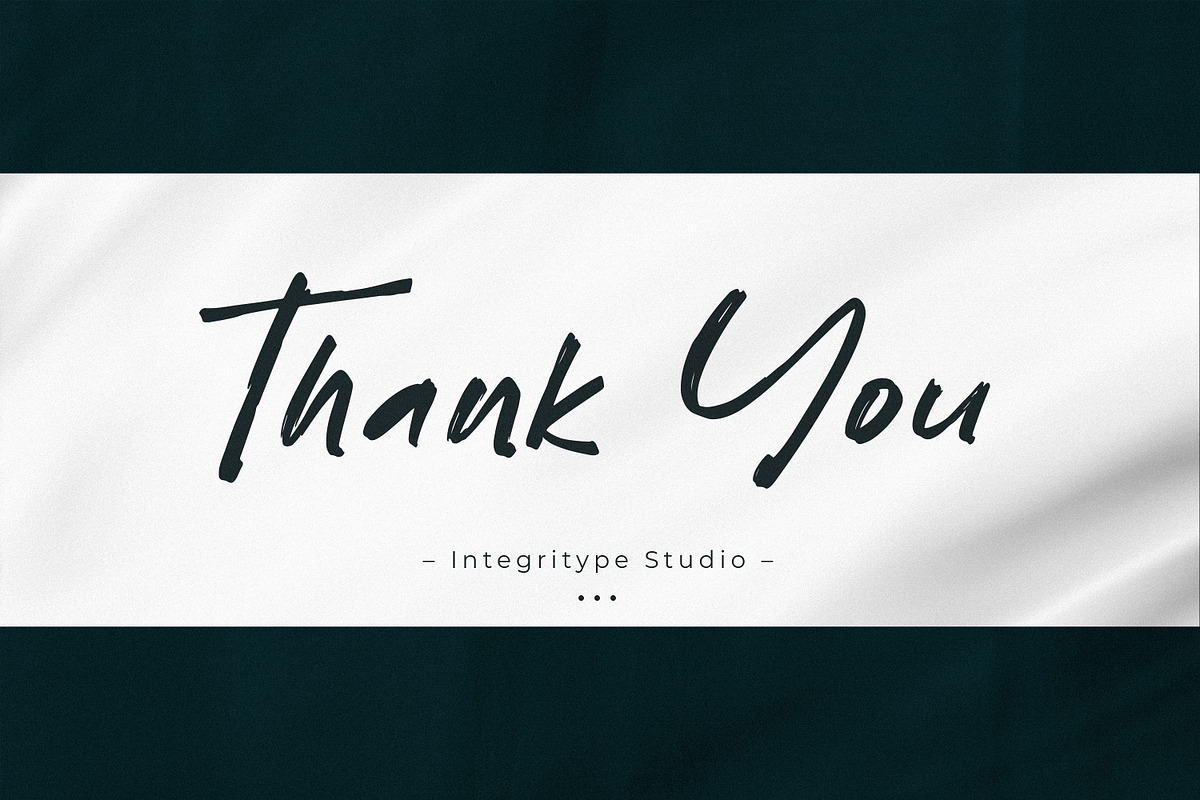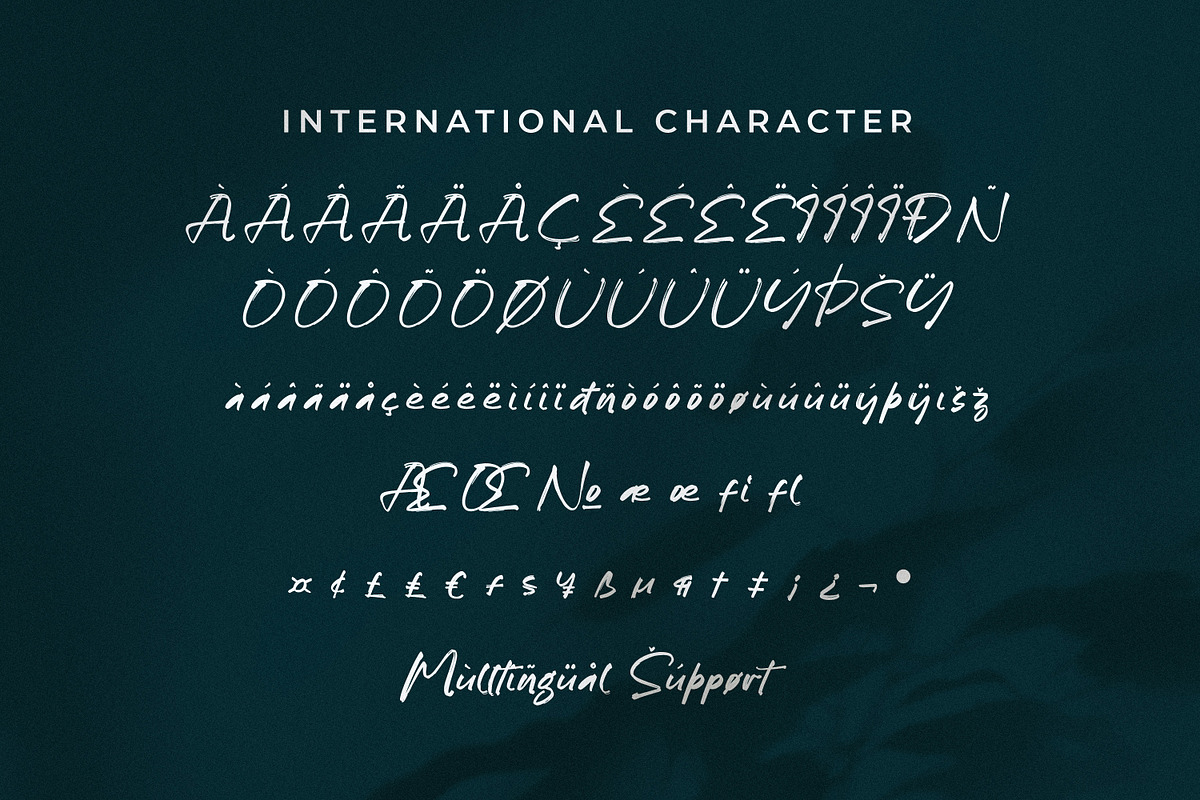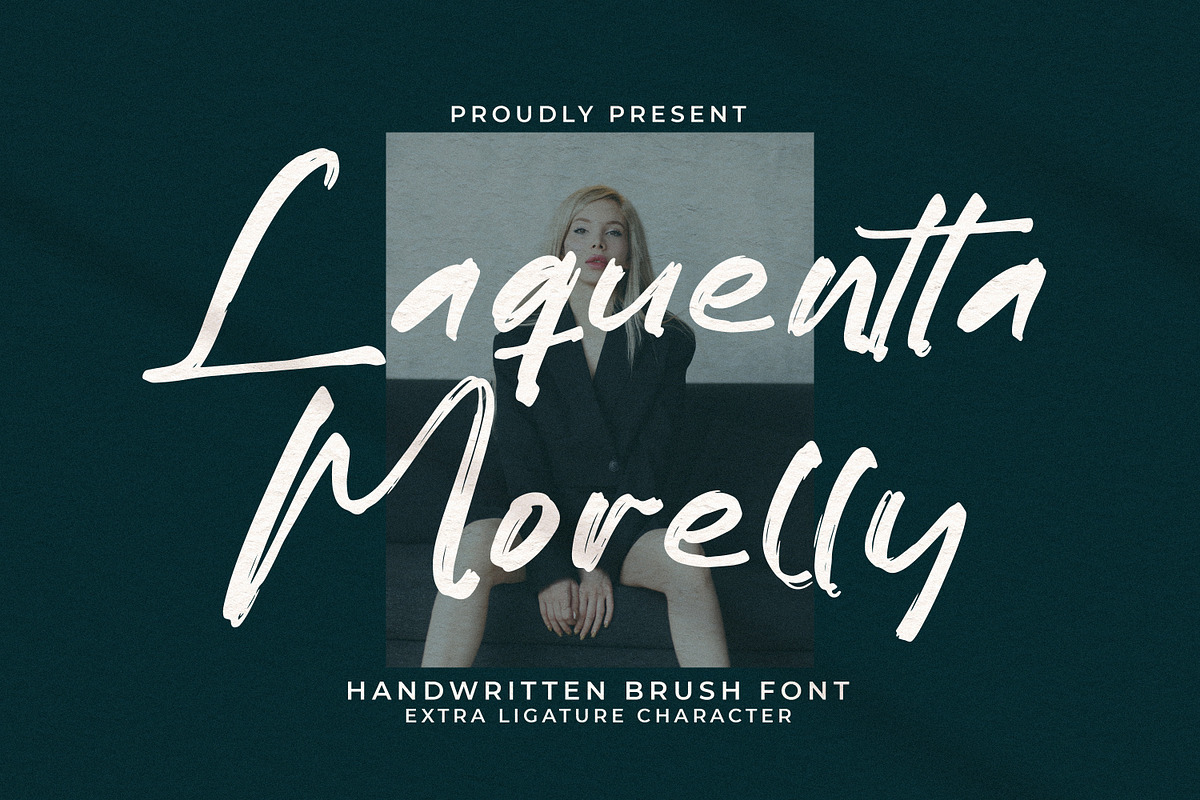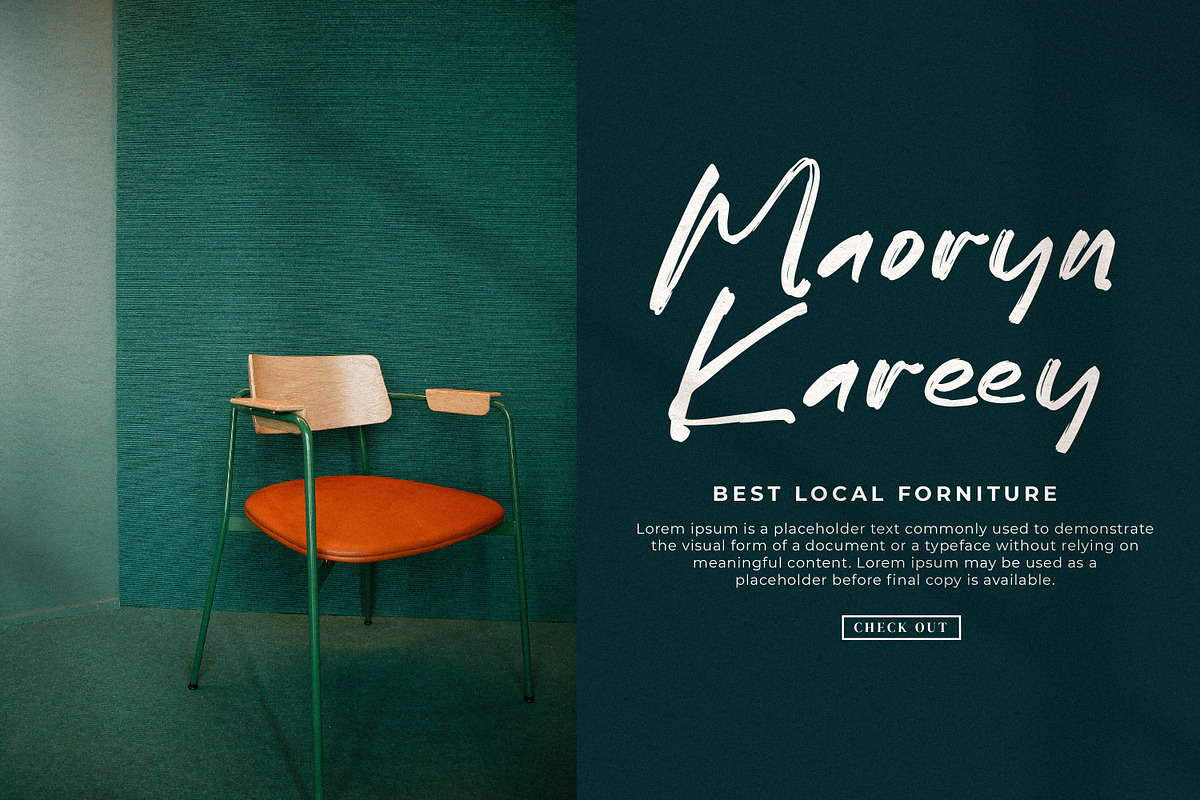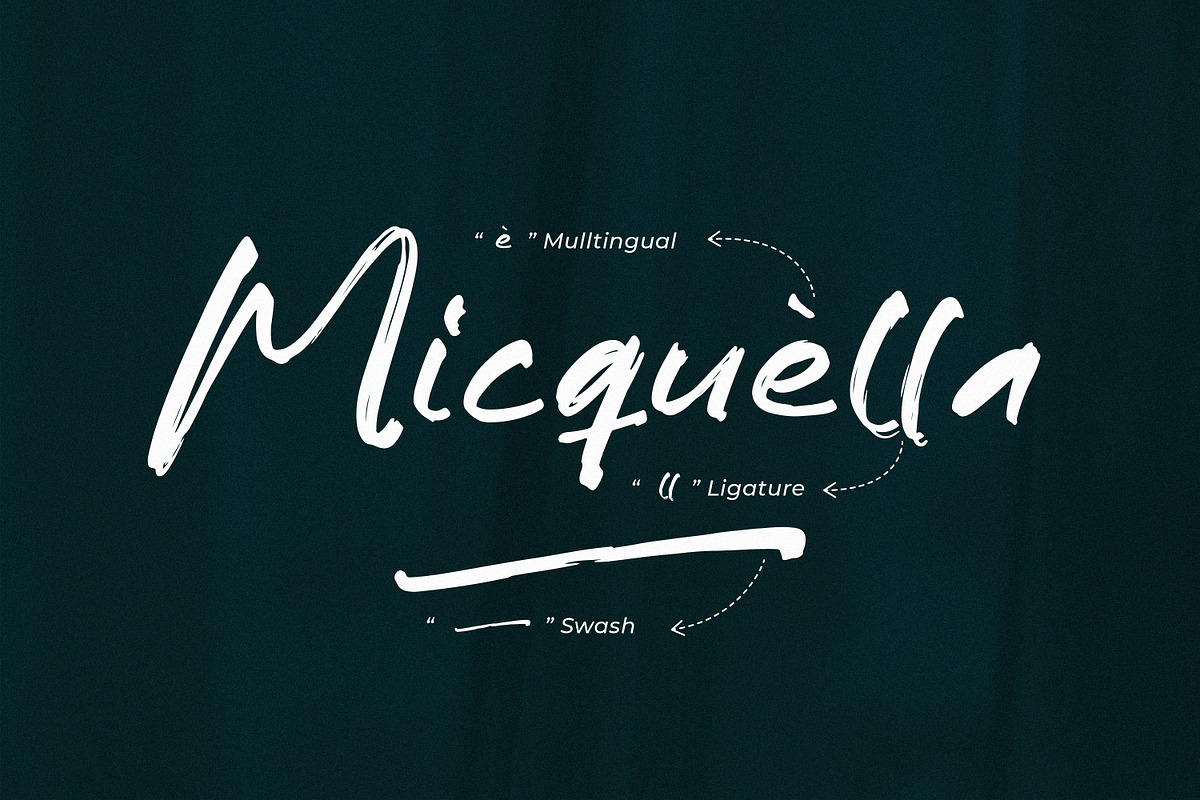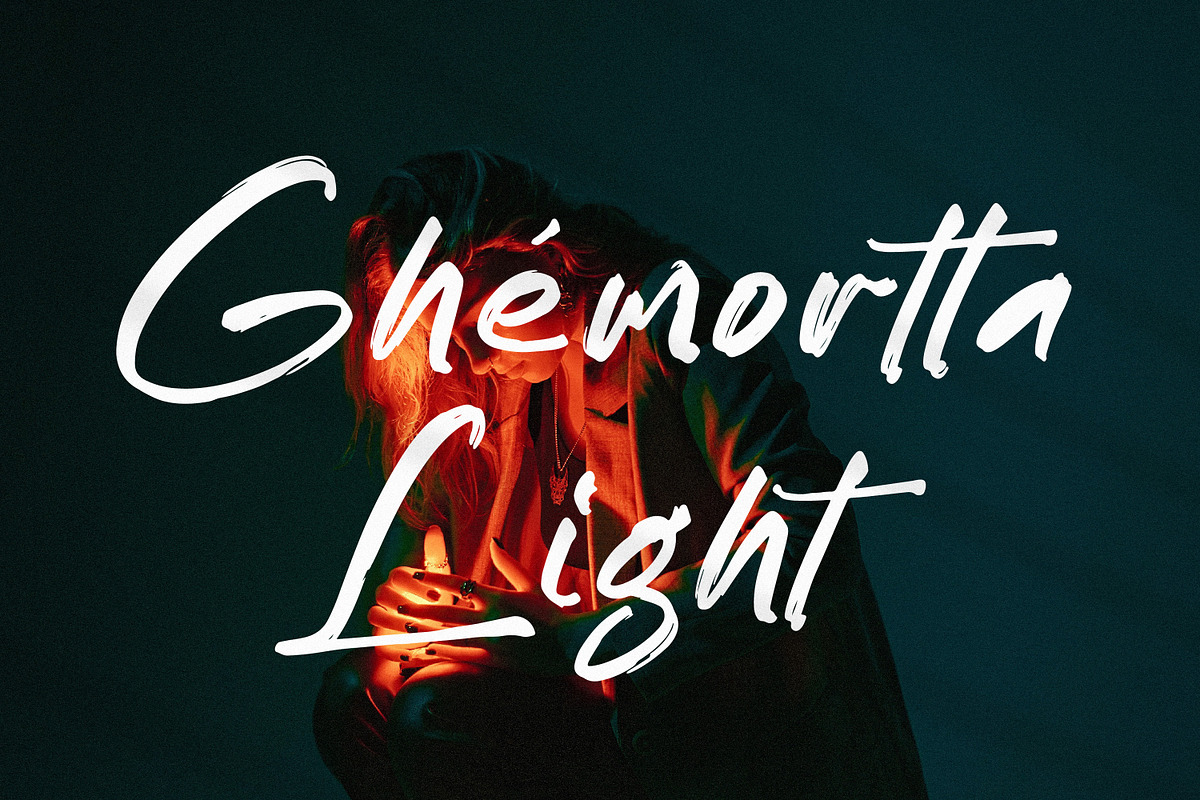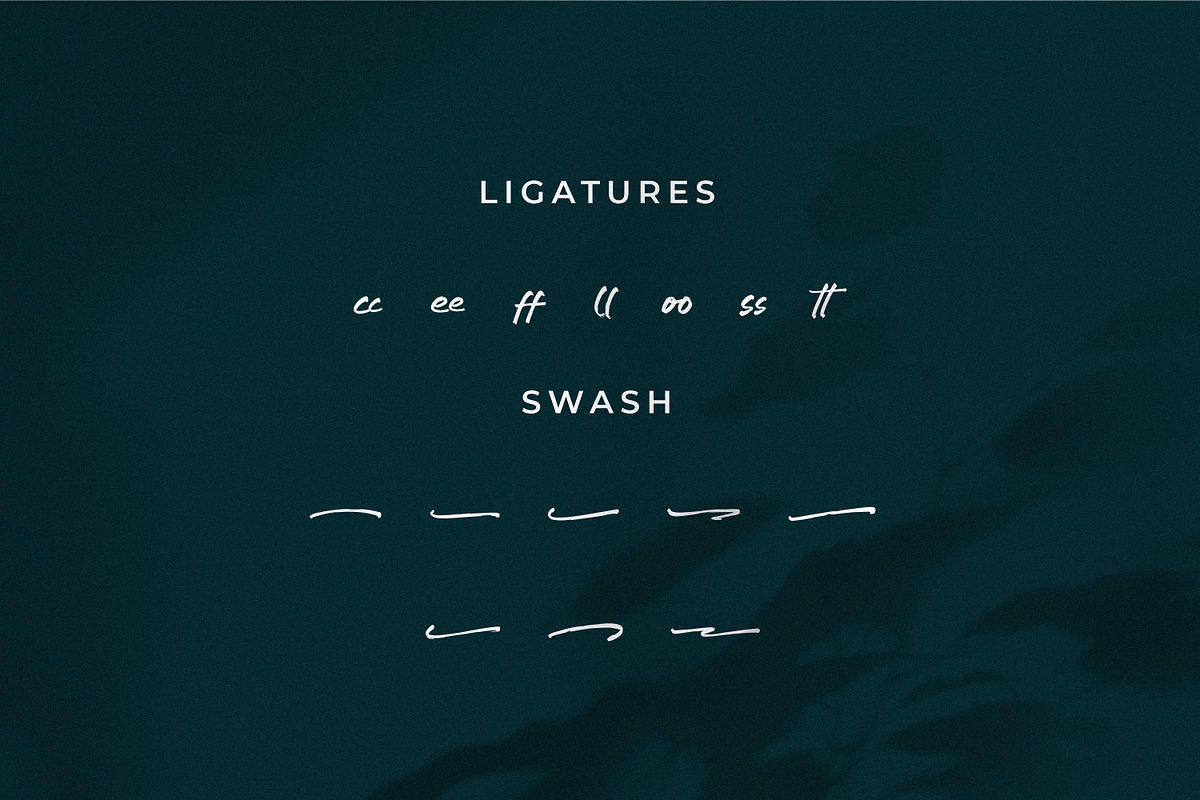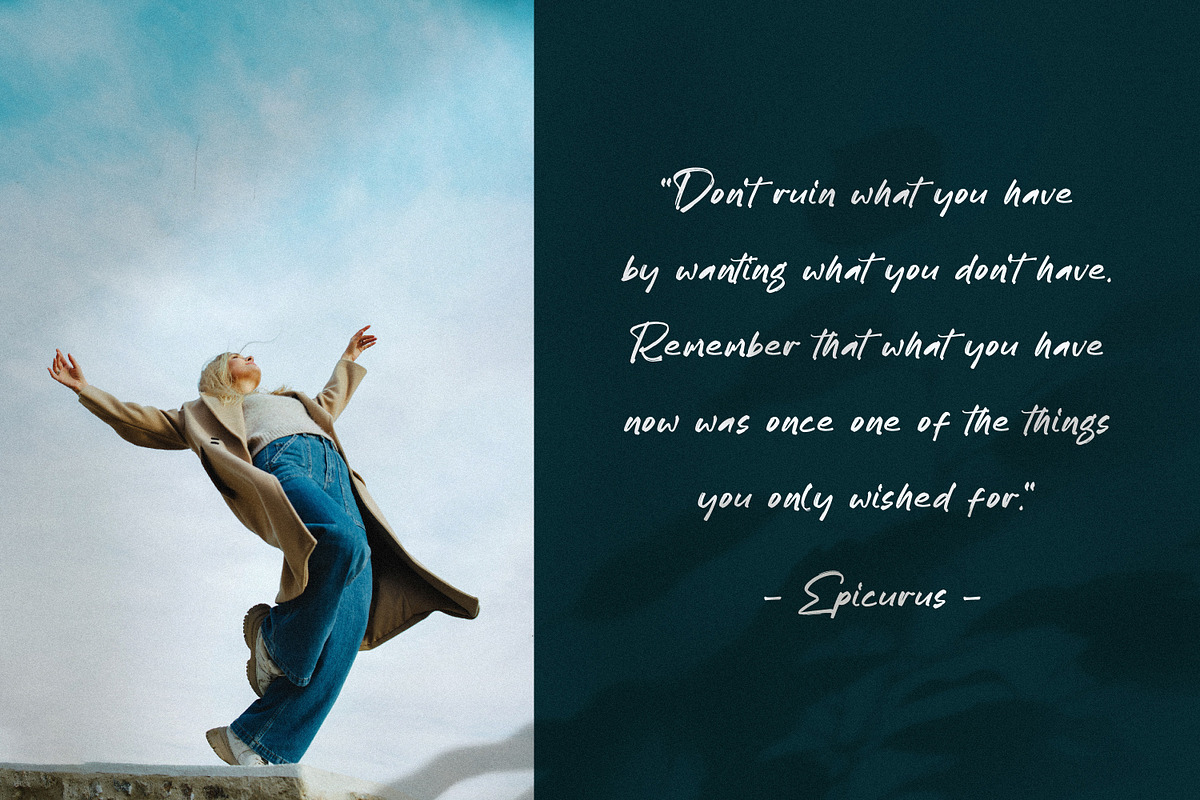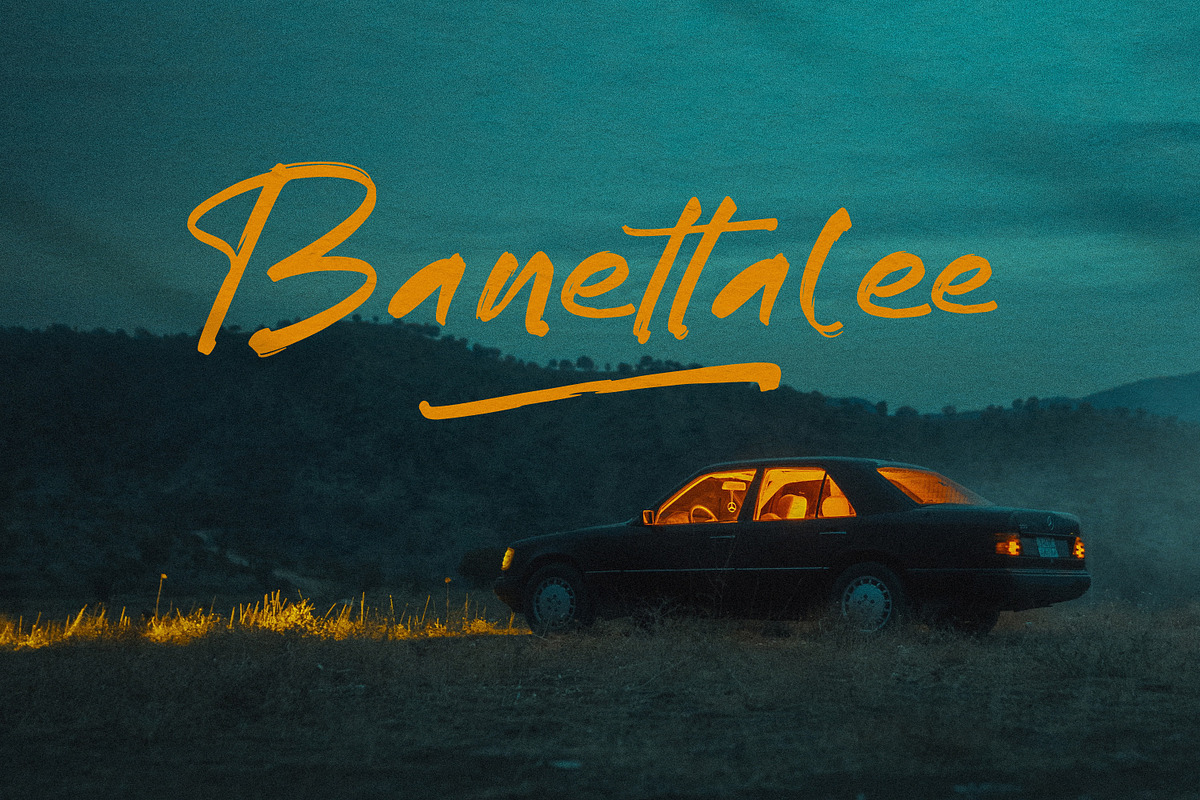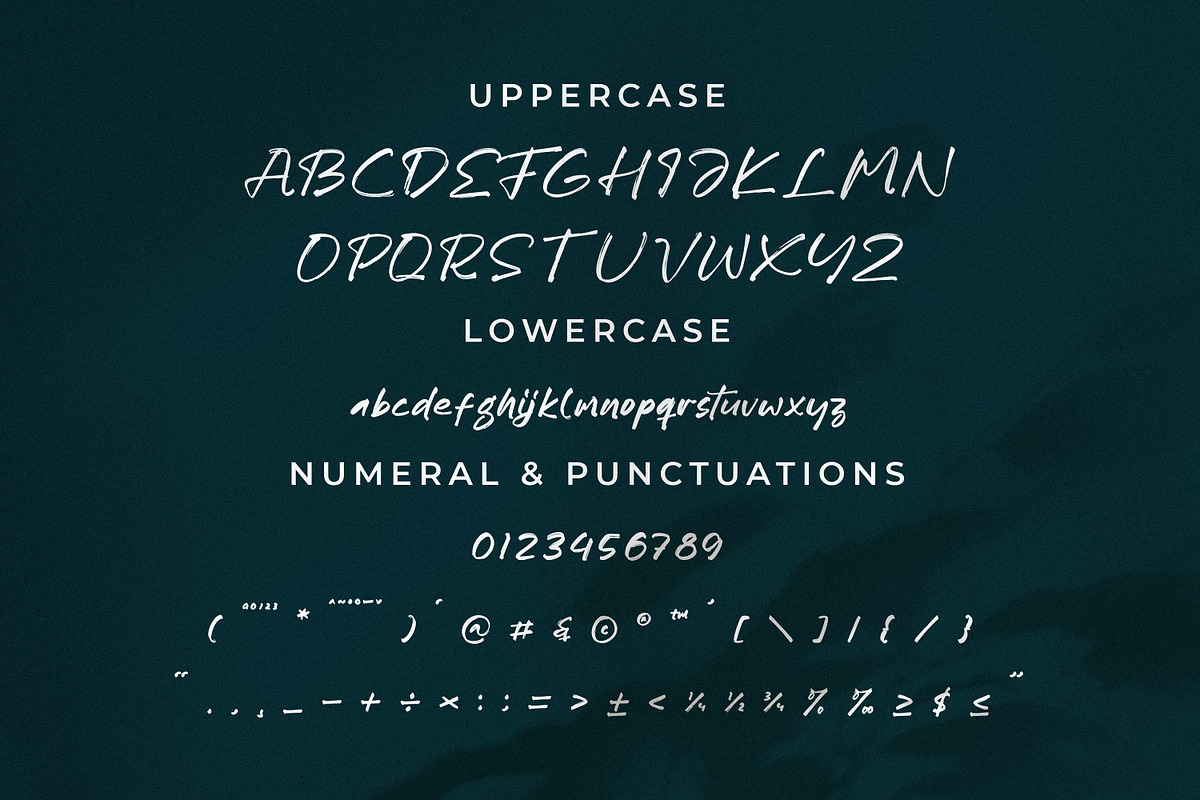
Laquentta Morelly
Laquentta Morelly - Handwritten Brush Font, from Integritype Studio, is a premium Handwritten Brush Font, perfect for any project like: logos, branding projects, homewares designs, product packaging, mugs, quotes, posters, shopping bags, t-shirts, covers books, business cards, invitation cards, greeting cards, labels, photography, watermarks, special events and all your other luxury projects that require a premium taste.
Ligatures, Alternatives & Swashes